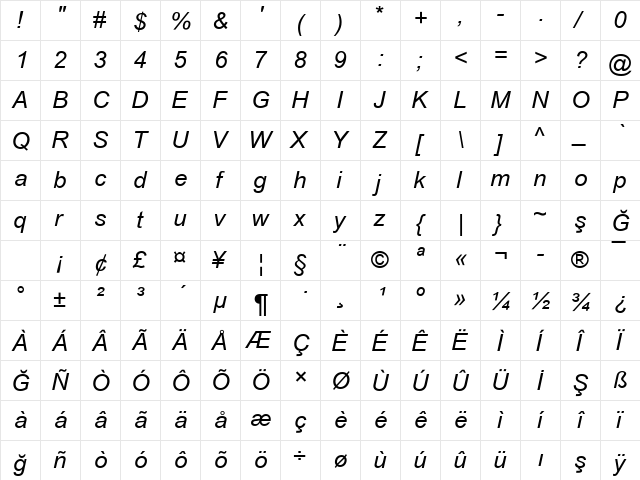
Arial2 Italic Turkce
Design Context for Arial2 Typeface
Arial2 takes a measured approach to typography — its balanced proportions and neutral character make it a reliable workhorse for both digital and print work. The slanted form adds forward momentum and visual energy.